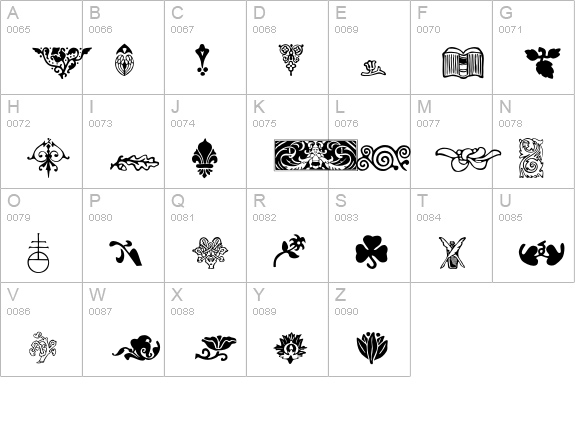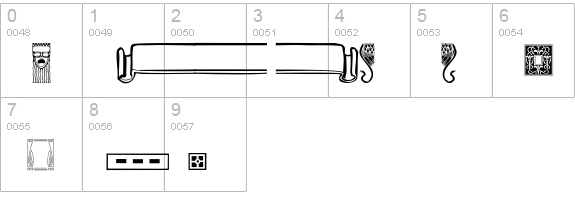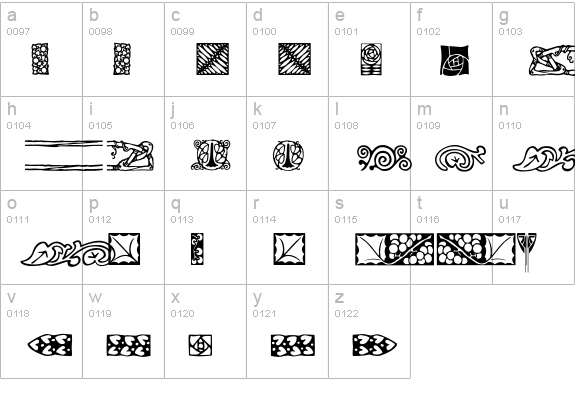
P22ArtsAndCrafts-OrnamentsTwo font is a stunning display of artistic craftsmanship, designed to adorn your projects with its intricate and ornate details. This font is a perfect choice for adding a touch of elegance and sophistication to any design, whether it be invitations, posters, or even logos. The P22ArtsAndCrafts-OrnamentsTwo font features a wide range of decorative elements, including swirls, flourishes, and delicate patterns that are reminiscent of the Arts and Crafts movement. Each character has been meticulously crafted to capture the essence of this artistic style, making it a truly unique and eye-catching choice. One of the best features of P22ArtsAndCrafts-OrnamentsTwo font is that it is free! Yes, you read that right. This extraordinary font is freely available to download at FontsMarket.com, allowing you to enhance your designs without breaking the bank. Whether you're a professional designer or a hobbyist, this font is a valuable addition to your font library. The versatility of P22ArtsAndCrafts-OrnamentsTwo font is another reason to love it. It can be used in a variety of design projects, from vintage-themed wedding invitations to elegant signage for high-end boutiques. Its timeless and classic aesthetic lends itself well to a wide range of design styles, making it a must-have for any creative endeavor. So why wait? Enhance your designs with the stunning beauty of P22ArtsAndCrafts-OrnamentsTwo font. Download it for free today at FontsMarket.com and unleash your creativity like never before.